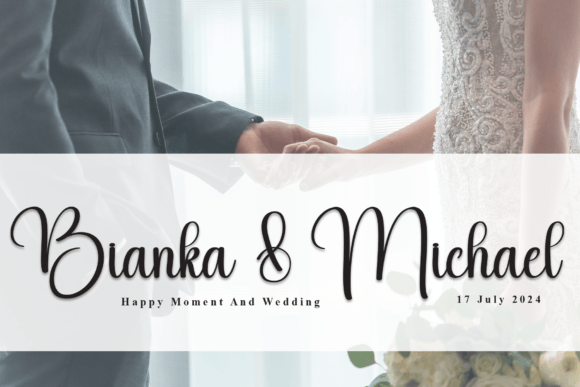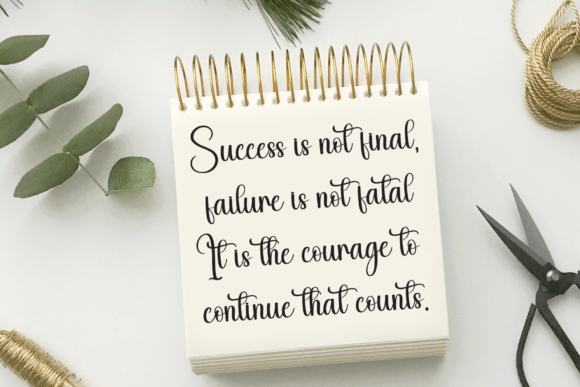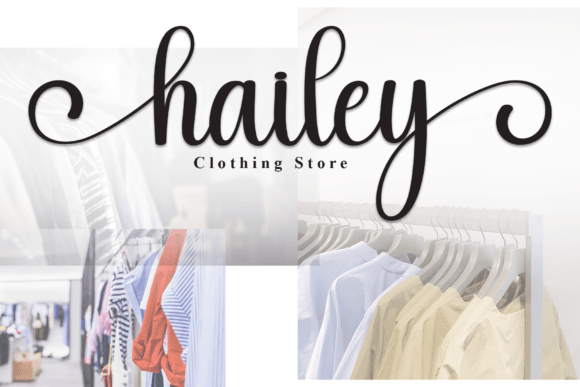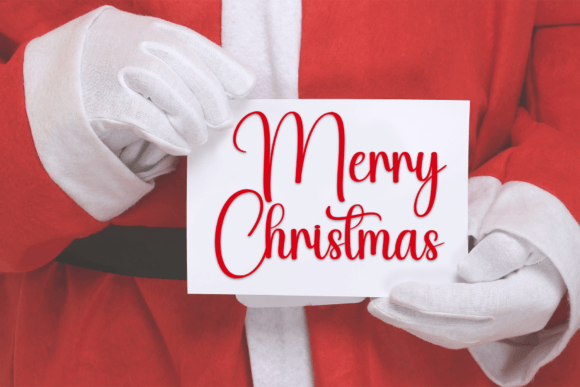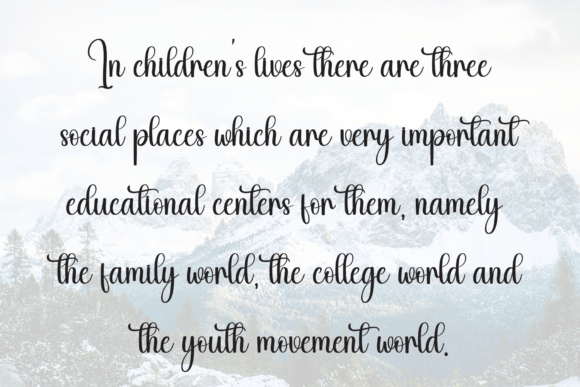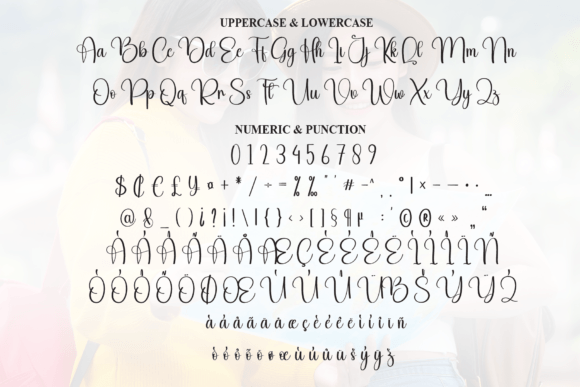
The Perfect Font for a Casual Holiday Vibe
There’s nothing quite like the feeling of sitting down with a warm cup of coffee, surrounded by blank sheets of paper, and letting your creativity flow. For designers, this moment is all about finding the perfect font to bring a project to life. And, if you’re looking for a font that captures the essence of a relaxed and friendly vibe, you’re in luck.
Meet Holiday Font, a casual handwritten font that’s perfect for personal projects, social media, and invitations. With its natural, flowing strokes, it adds an effortless, charming touch to any design. Whether you’re designing a holiday card or a social media post, Holiday Font is the perfect choice to bring warmth and authenticity to your work.
As a designer, having the right font can make all the difference in creating a cohesive and engaging design. Holiday Font is a valuable addition to any designer’s toolkit, offering a unique and stylish way to express yourself and connect with your audience.
Holiday Font Key Features
- Unique Characteristics: Holiday Font features a distinctive, festive design with bold lines, ornaments, and a mix of uppercase and lowercase letters, making it perfect for holiday-themed designs, cards, and packaging.
- Font Style: The font is available in a single style, with a bold and playful feel that’s ideal for creating eye-catching headings, titles, and short text passages.
Holiday Font Review
- The Holiday Font has a great nostalgic feel to it, perfect for creating a warm and festive atmosphere.
- The font is highly customizable, with a wide range of styles and sizes available.
- The font is easy to read, even at smaller sizes, making it perfect for body text.
- The font can feel a bit too playful at times, which may not be suitable for all designs.
- The font lacks a clear bold weight, which can make it difficult to create clear headings.
- The font may not be the best choice for more formal or professional designs.
The Holiday Font is a great choice for designers looking to create fun and festive designs. While it may not be the best choice for more formal designs, it’s perfect for holiday cards, social media graphics, and other festive projects. With a bit of customization, the Holiday Font can add a unique touch to any design.
Tips for Getting the Most Out of Holiday Font
Experiment with different font sizes and colors to create a festive atmosphere. Use the Holiday Font in conjunction with other festive graphics and images to add a pop of color and fun.
Holiday Font is perfect for creating invitations, party decorations, and social media posts for holidays like Christmas, Halloween, and New Year’s Eve. It’s also great for creating gift tags, cards, and other paper crafts.
Alternatives to Holiday Font for Designers
Great Vibes is a modern and elegant script font, perfect for creating a festive atmosphere without being too over-the-top. It’s ideal for use in wedding invitations, event promotions, or holiday cards. Compared to Holiday Font, Great Vibes has a more refined and sophisticated feel, making it suitable for a wider range of applications.
Carolyna Pro is a luxurious and ornate script font, ideal for adding a touch of glamour to your holiday designs. It’s perfect for use in high-end event invitations, luxury brand promotions, or exclusive holiday campaigns. While Holiday Font is more playful and whimsical, Carolyna Pro has a more sophisticated and elegant feel.